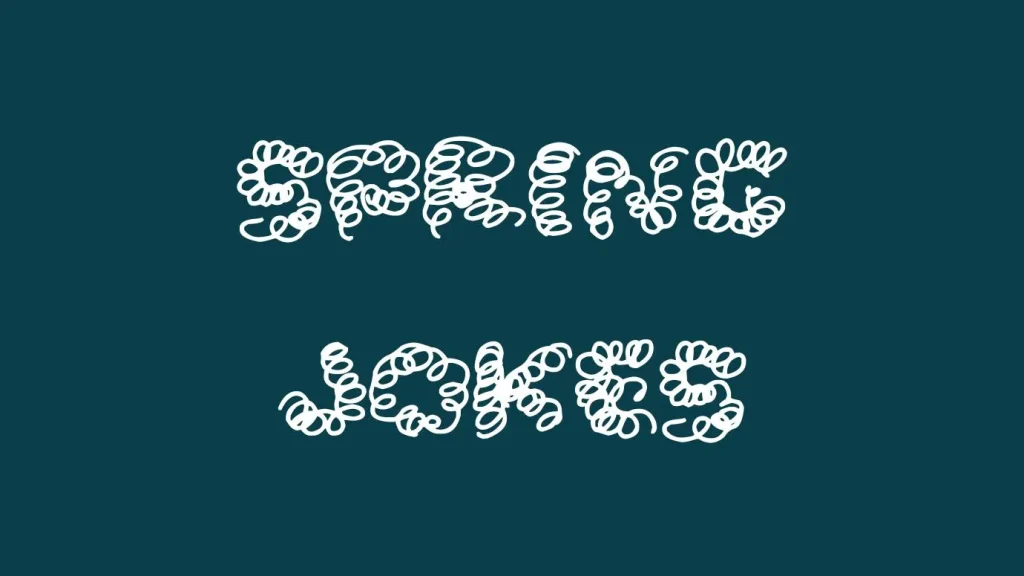
The fancy design has attractive, clean characters that make it a great option for headers and certain other visual needs. Spring Jokes Font is a great option for birthday cards as well as other joyful graphics because of its cheerful appearance.
This design is a wonderful choice if you want to add a little fun to your project. The font may be created using the online font-generating tool. Additionally, this text style is interesting since it offers your design a more elegant and beautiful appearance.
Description of Spring Jokes Font By Darrell Flood
Your project will be improved if you combine this font with another font from the same category. The design enhances the quality of your work. This writing style is suitable for video games, visual editing, and logo designs, among other things.
This brilliant textual style is ideal for designing websites, blogs, and a variety of other relevant planning objectives. When striving for a design that stands out and captures attention, the key is to pair this font with the zombified font. Create amazing headers, logos, posters, banners, magazine covers, invitations, websites, and video game designs, using this typeface.
| Name | Spring Jokes Font |
| Designer | Darrell Flood |
Spring Jokes Font Variations
Reasons to Use Spring Jokes Font
In terms of its design, the typeface has space being in the proper order, it has a similar appearance with many various font styles. The design is perfect for creating pictures designing, electronic book covers, and much more.
What type of typeface is Spring Jokes?
It belongs to the fancy category in the font family and this is a modern and classic typeface.
Where can we use the Spring Jokes typeface?
Cartoons that are famous for their designs use this marvelous font in their logos. As well as being used for various projects.